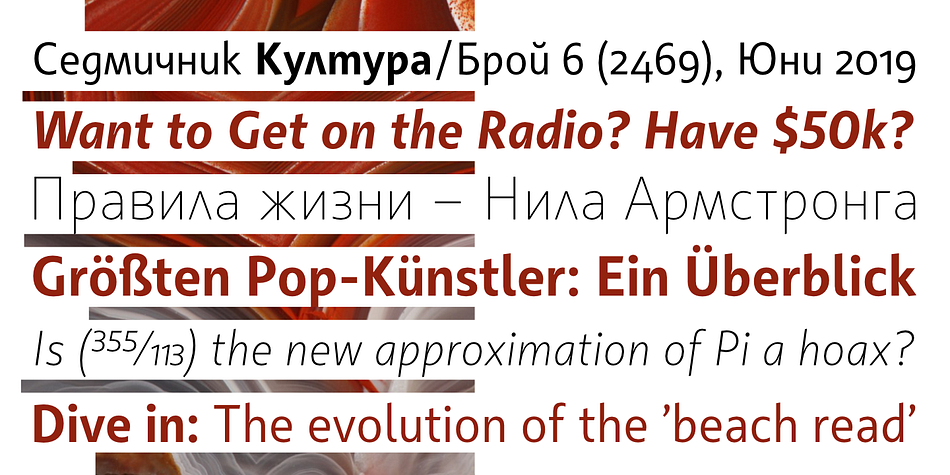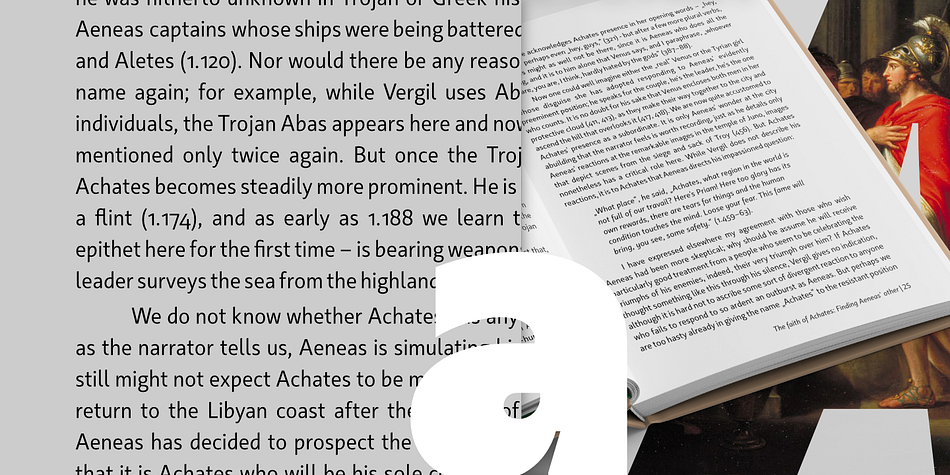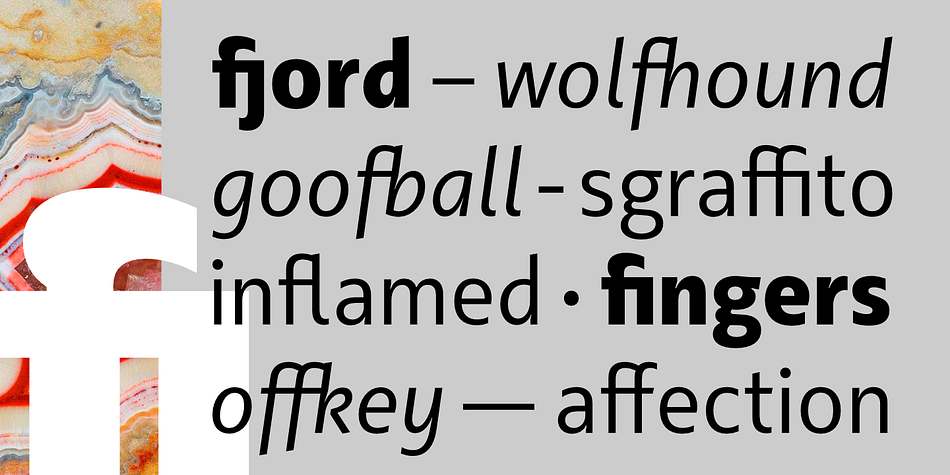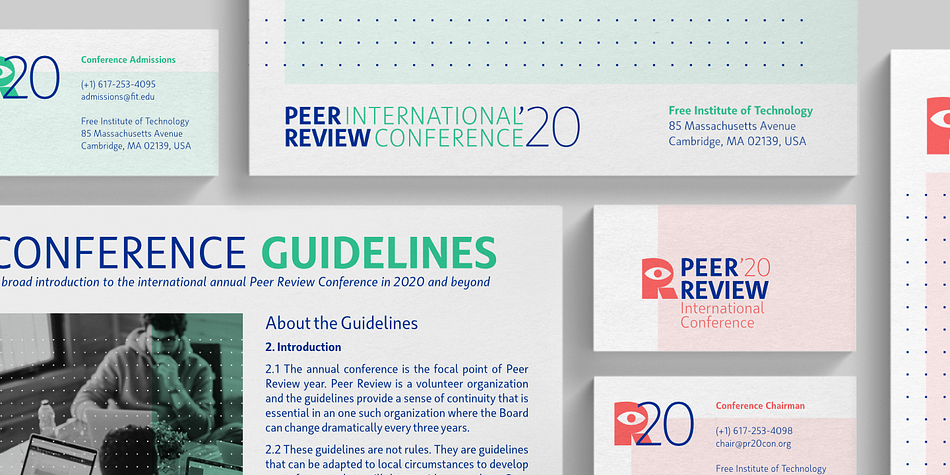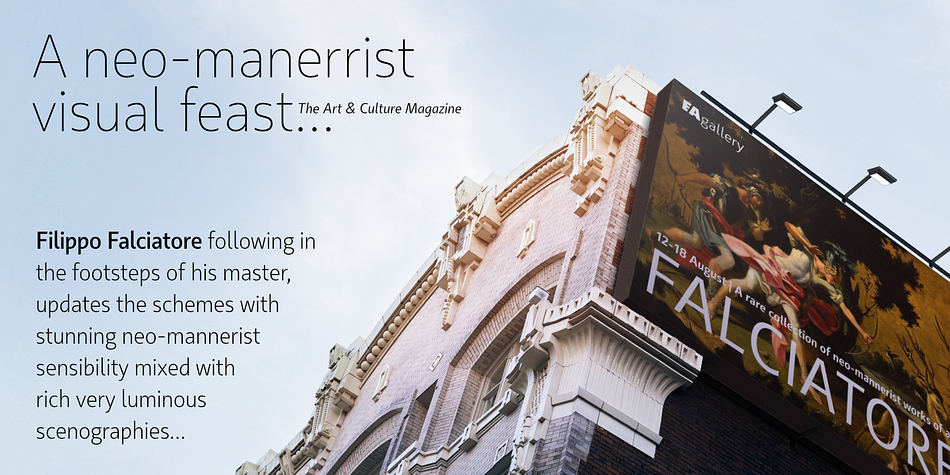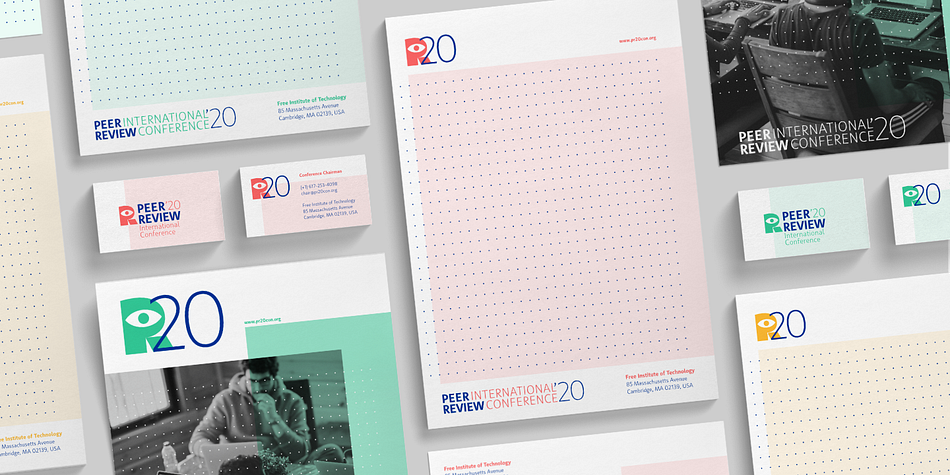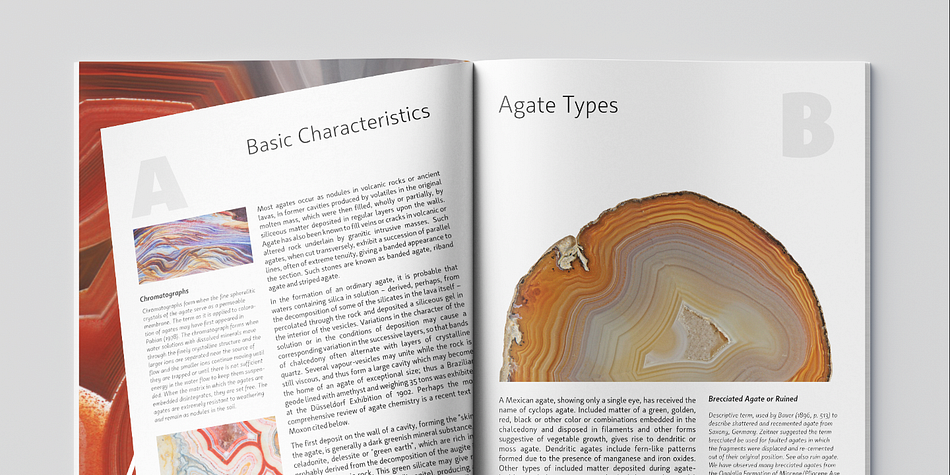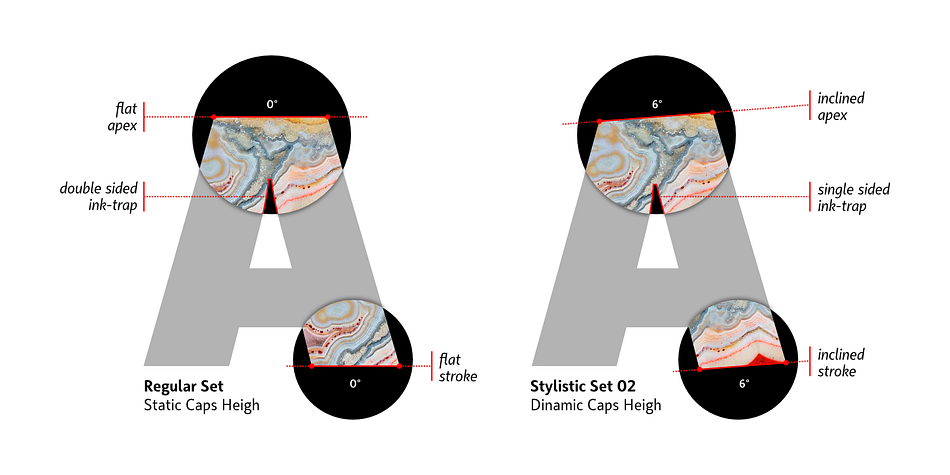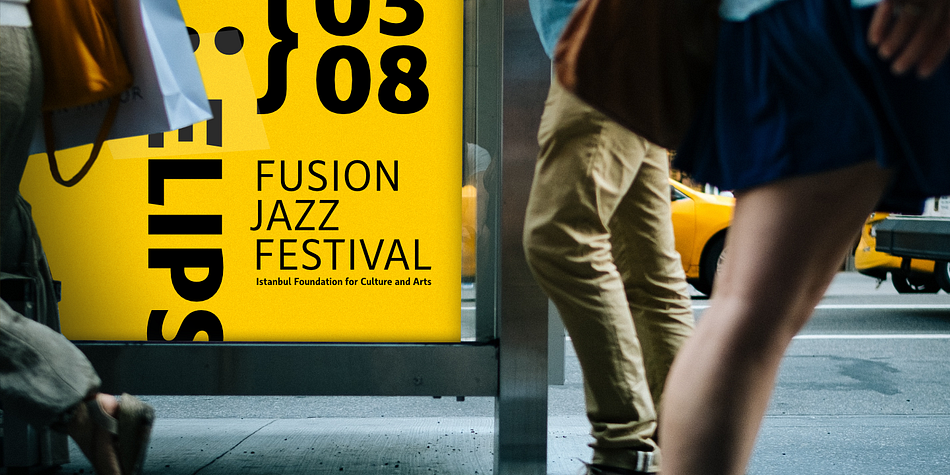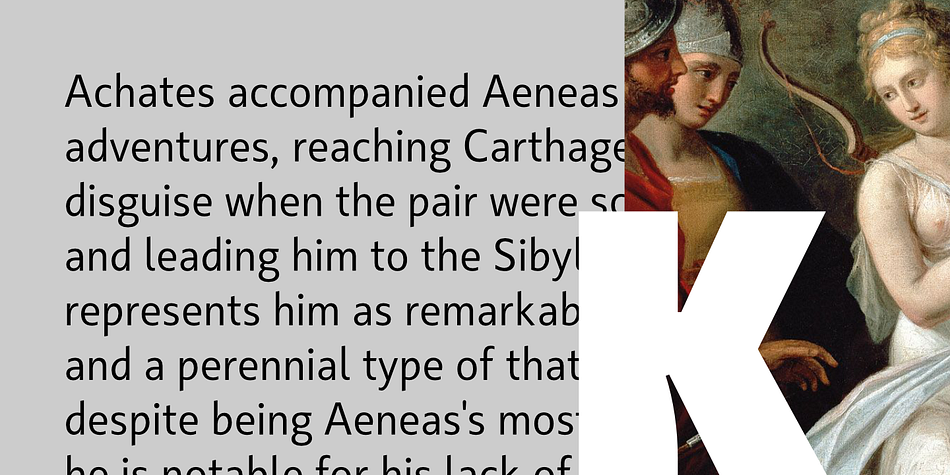
Designed by Vassil Kateliev, Achates is a sans serif font family. This typeface has sixteen styles and was published by Karandash.
Good, faithful Achates…
Named after the trusty Trojan that followed Aeneas throughout his adventures, Achates is a humanist sans workhorse well suitable for broad range of design projects.
Its soft, delicate and almost cursive shapes define warm and friendly typeface that is legible and easy on the reader’s eye. Following into the footsteps of its namesake, it is humble, informal yet stable and trustworthy. Ideally suited for advertising and packaging, editorial and publishing, logo, branding and creative industries, poster and billboards, small text and signage as well as web and screen design.
Achates provides a broad range of advanced typographical features such as language localization, alternates, stylistic alternates, extended ligatures, fractions and case-sensitive forms. It comes with a complete figure range set of old-style, lining and tabular figures. The family has extensive multilingual support, covering more than 70 Latin-based languages and specially designed Cyrillic with Bulgarian and Russian localization.
As Achates was a humble hero, a devoted friend and faithful companion to Aeneas on his journey to greatness, so this font can be your trusty sidekick on your creative path. The marvelous Agate is also named after the Trojan hero. It is considered as the stone to call on for support when you need stability and grounding in your life. Along with its supportive energy, the Agate stone has been long admired for its incredible beauty. So… a Trojan hero or a thing of beauty – it is up for you to decide… or just maybe both!